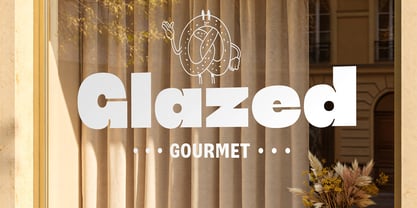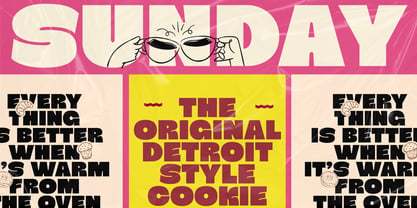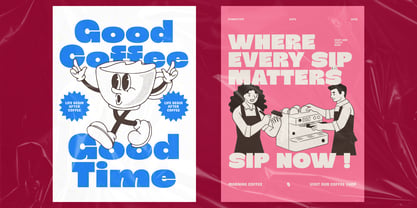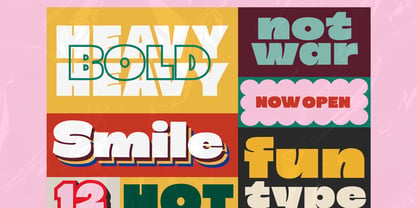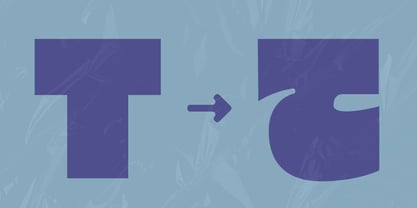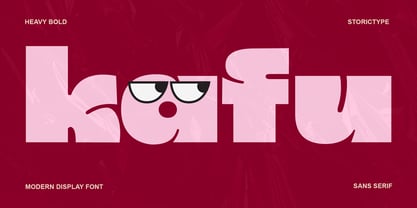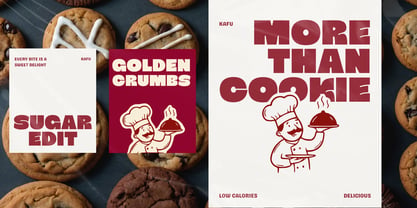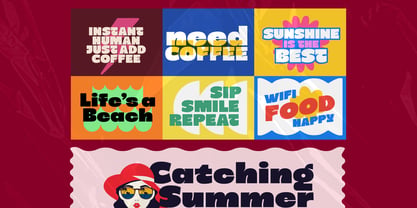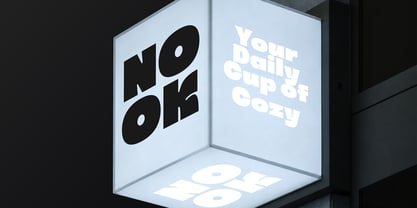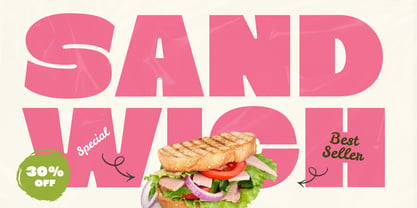
Kafu
The Kafu Font Family was designed by panji nugroho and published by Storictype. Kafu contains 1 styles. More about this family
Kafu is a Heavy bold, high-contrast, and modern display font meticulously crafted to make a statement. Inspired by contemporary architectural lines and geometric precision, Kafu brings a sophisticated edge to any creative project. Whether you are designing high-fashion branding, editorial layouts, modern poster design, or captivating social media graphics, Kafu offers the perfect blend of elegance and impact
✨ Features :
• Uppercase and Lowercase
• Numerals
• Punctuations
• Accents (Multilingual Characters)
• Ligatures and Alternative Style Stylistic Set
🎨 Perfect For:
• Bakery / Pasrty branding
• Coffee Shop Branding
• Café menus, apparel, and signage
• Etc